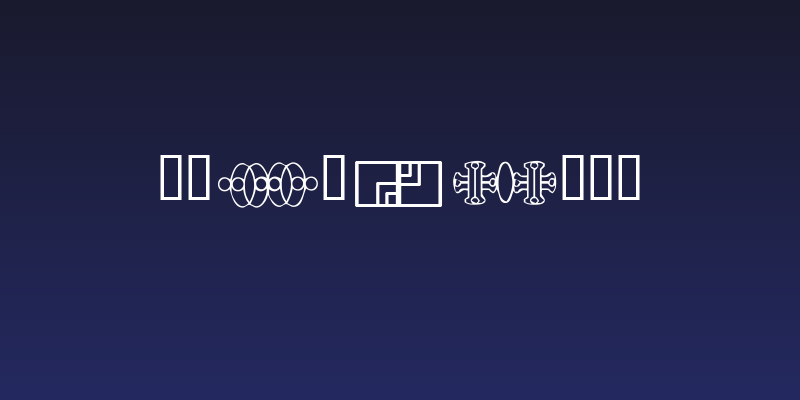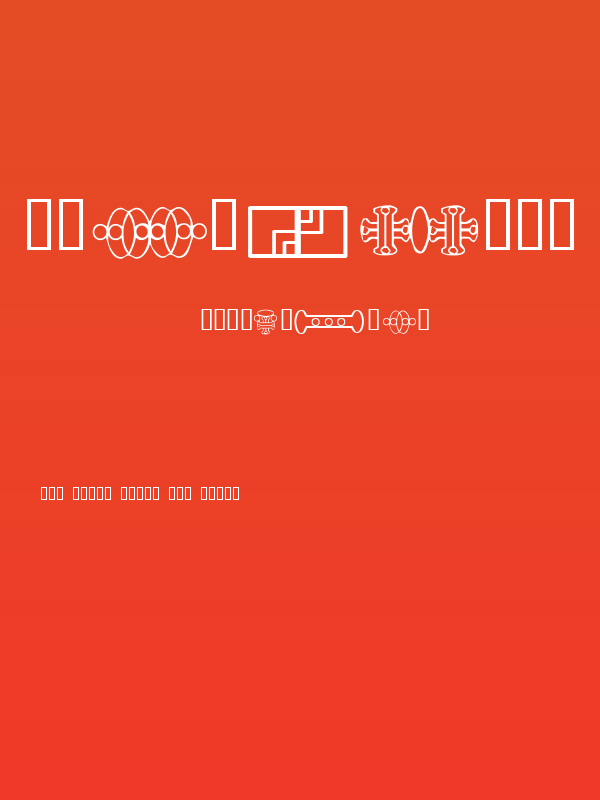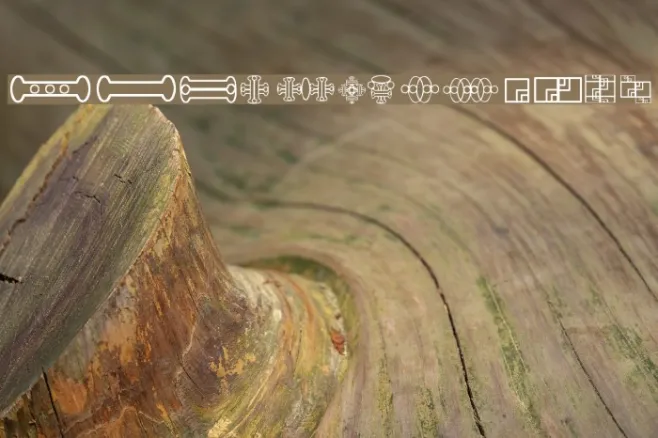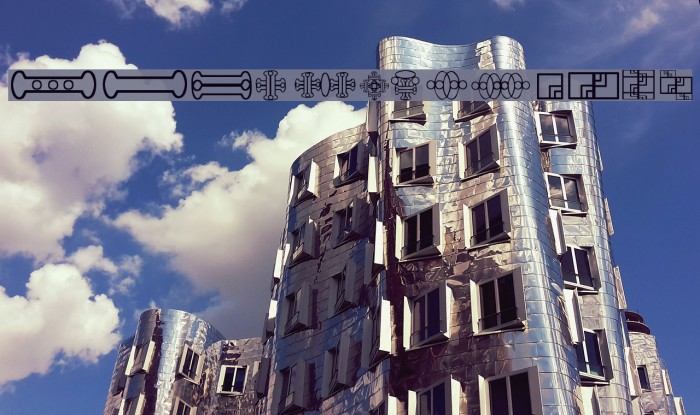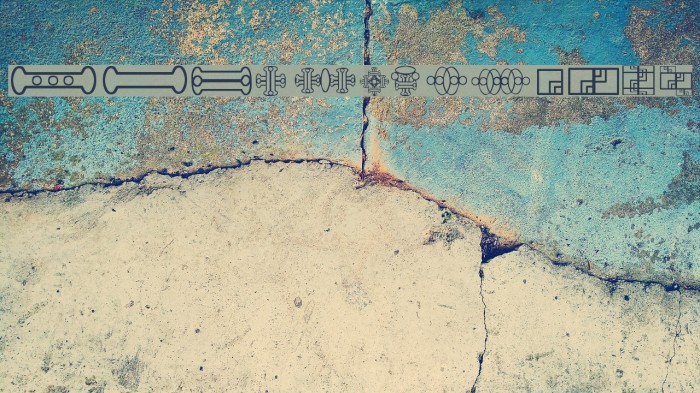
Trinkets4 Font
Trinkets4 Description
This font features a highly decorative and ornamental style, characterized by intricate and elaborate designs that resemble trinkets or jewelry. Each character is uniquely crafted with embellishments that give it a distinct and artistic appearance. The font is not designed for readability but rather for visual impact, making it suitable for decorative purposes. The intricate details and embellishments make it stand out, offering a unique aesthetic that can be used to add a touch of elegance and sophistication to any design project.
| Use Case | Logos, Decorative headings, Artistic designs |
| Proposed Projects | Ideal for decorative projects, such as invitations, greeting cards, and artistic posters where a unique and ornate style is desired. |